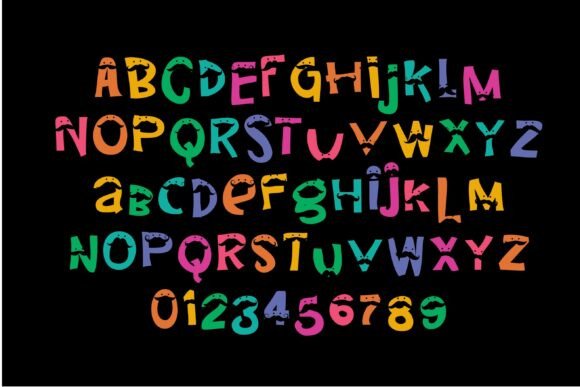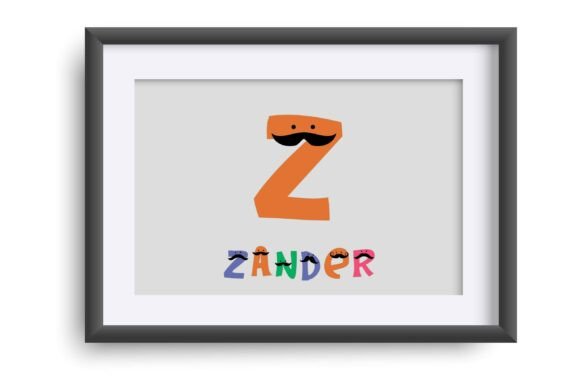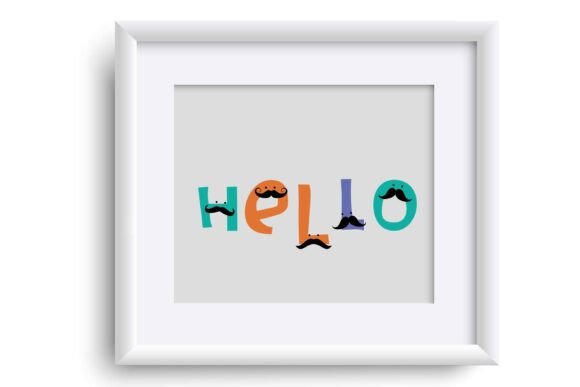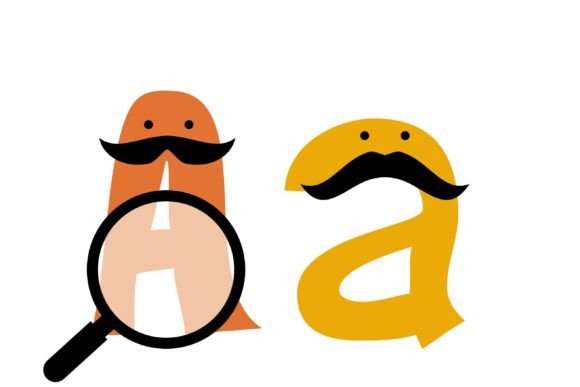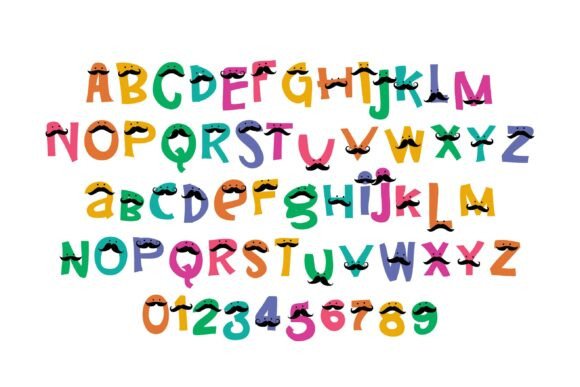
Cinco De Mustache Font: Add a Dash of Dapper Humor to Your Designs
Are you tired of using the same old fonts in your designs? Look no further than Cinco de Mustache, a quirky display typeface that’s sure to add a dash of dapper humor to your projects. This full-color SVG font is perfect for designers and crafters who want to add a playful and personable touch to their work.
The Unique Characteristics of Cinco de Mustache
Cinco de Mustache is a one-of-a-kind font that features bouncy, rounded letterforms with rhythmic “mustache-and-mask” motifs. These unique characteristics bridge the gap between photo booth props and modern character-driven branding, making it the perfect choice for a wide range of design projects. The font’s heavy structural weight gives it a bold and eye-catching presence, while its whimsical personality adds a touch of humor and playfulness.
Perfect for Independent Barber Shop Identities
If you’re a designer working with independent barber shops, Cinco de Mustache is the perfect font for you. The font’s vintage-inspired feel and dapper personality make it a natural fit for barber shop identities. Imagine using Cinco de Mustache to create a logo or signage for a trendy barber shop – it’s sure to make a statement and help the business stand out from the competition.
Boutique Novelty Gift Logos and Children’s Party Invitations
Cinco de Mustache is also a great choice for boutique novelty gift logos and children’s party invitations. The font’s playful and whimsical personality makes it perfect for designs that need to appeal to a younger audience. Whether you’re creating a logo for a gift shop or designing invitations for a child’s birthday party, Cinco de Mustache is sure to add a touch of fun and personality to your designs.
High-Impact Social Media Headers
In today’s digital age, social media is an essential part of any design project. Cinco de Mustache is perfect for creating high-impact social media headers that are sure to grab attention. The font’s bold and eye-catching presence makes it perfect for headlines and titles, and its playful personality adds a touch of humor and whimsy to any design.
Why Choose Cinco de Mustache?
So why choose Cinco de Mustache over other fonts? Here are just a few reasons:
- Unique and quirky personality: Cinco de Mustache has a one-of-a-kind personality that’s sure to make your designs stand out.
- Full-color SVG font: This font is a full-color SVG file, making it perfect for digital designs and print projects.
- Heavy structural weight: The font’s bold and eye-catching presence makes it perfect for headlines and titles.
- Whimsical and playful: Cinco de Mustache adds a touch of humor and playfulness to any design.
How to Use Cinco de Mustache in Your Designs
Using Cinco de Mustache in your designs is easy. Here are a few tips:
- Use it as a display font: Cinco de Mustache is perfect for headlines and titles. Use it to add a touch of personality to your designs.
- Experiment with colors: The font’s full-color SVG design makes it perfect for experimenting with different colors and patterns.
- Pair it with other fonts: Cinco de Mustache pairs well with a wide range of fonts. Experiment with different pairings to find the perfect look for your design.
Cinco de Mustache is a unique and quirky font that’s perfect for designers and crafters who want to add a dash of dapper humor to their projects. With its heavy structural weight, whimsical personality, and full-color SVG design, it’s the perfect choice for a wide range of design projects. Whether you’re working with independent barber shops, creating boutique novelty gift logos, or designing children’s party invitations, Cinco de Mustache is sure to make a statement. So why not give it a try and see how it can add a touch of personality to your designs?